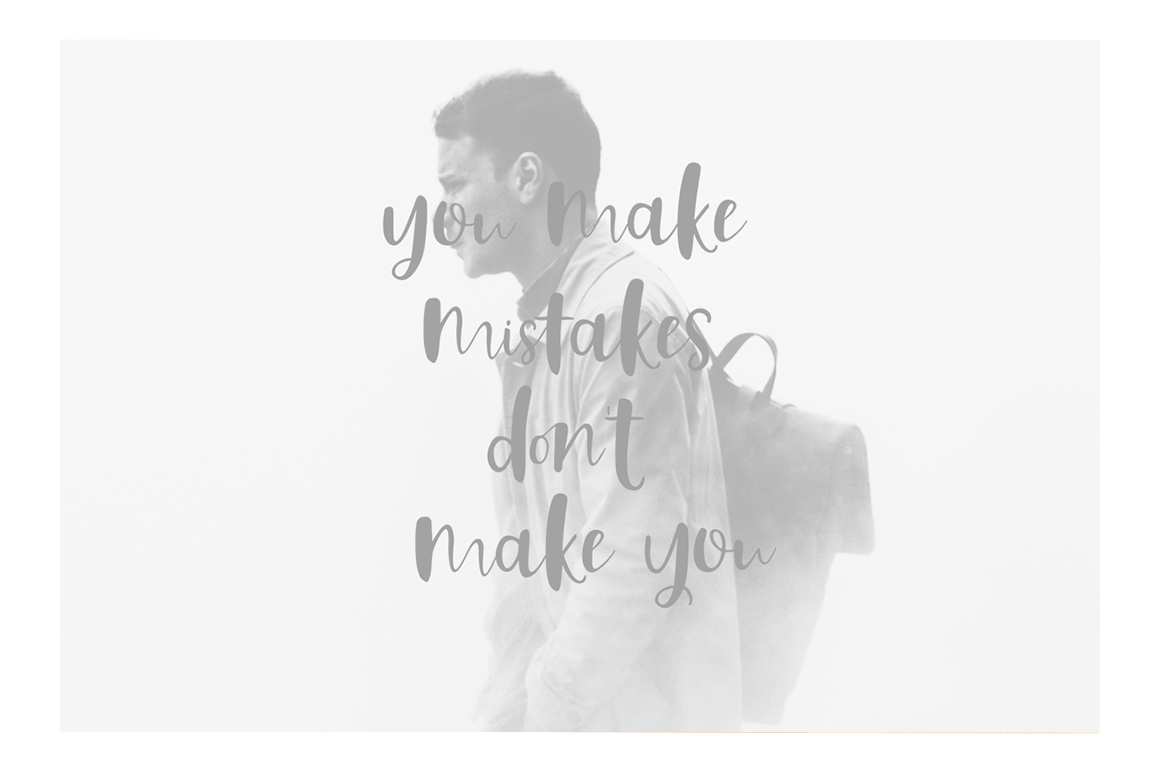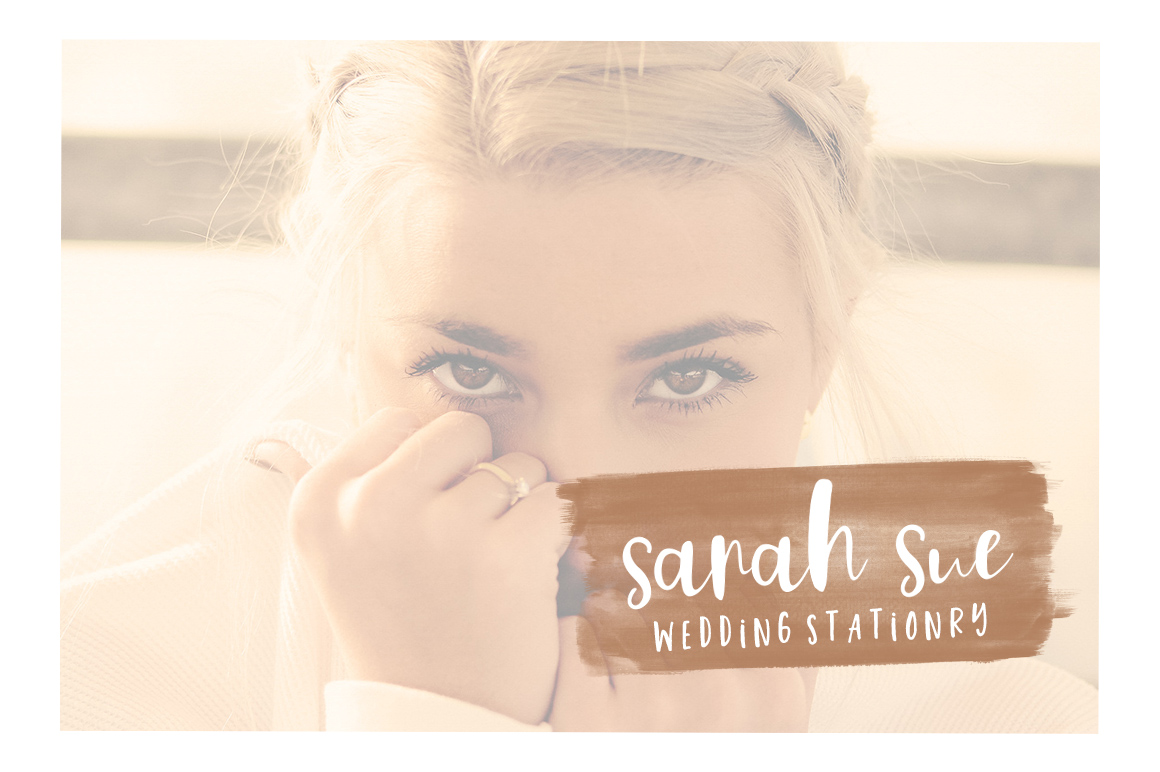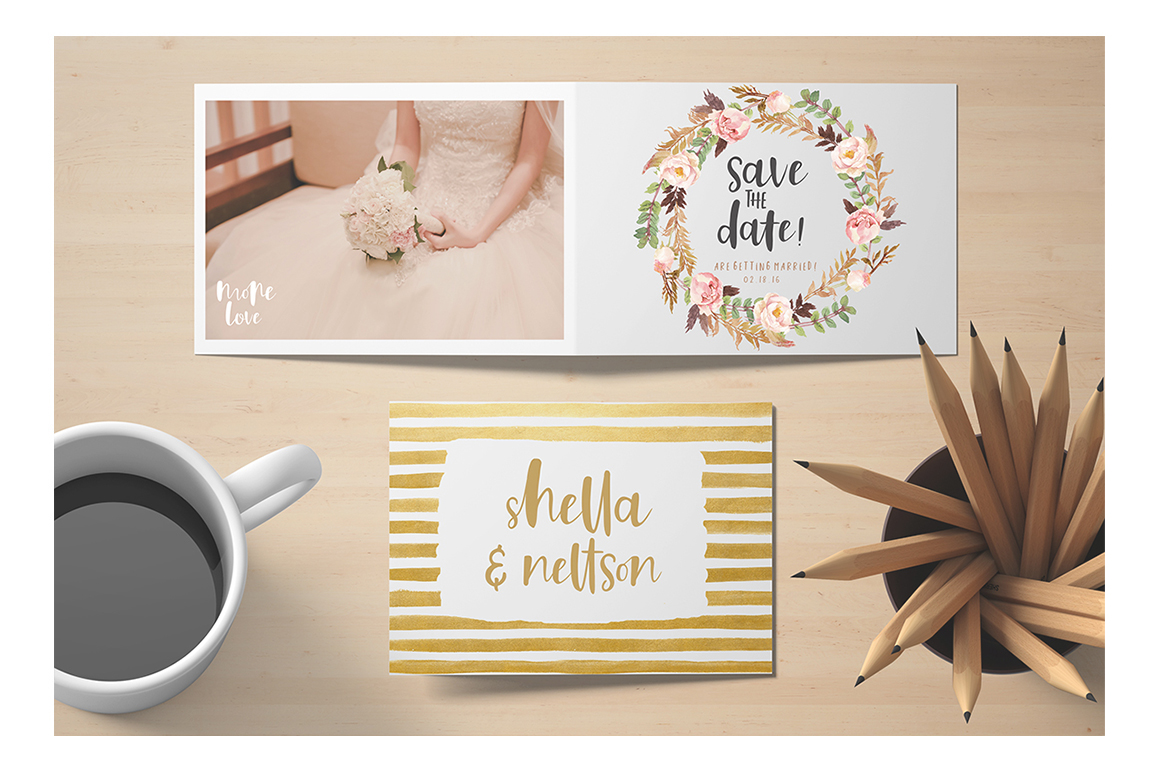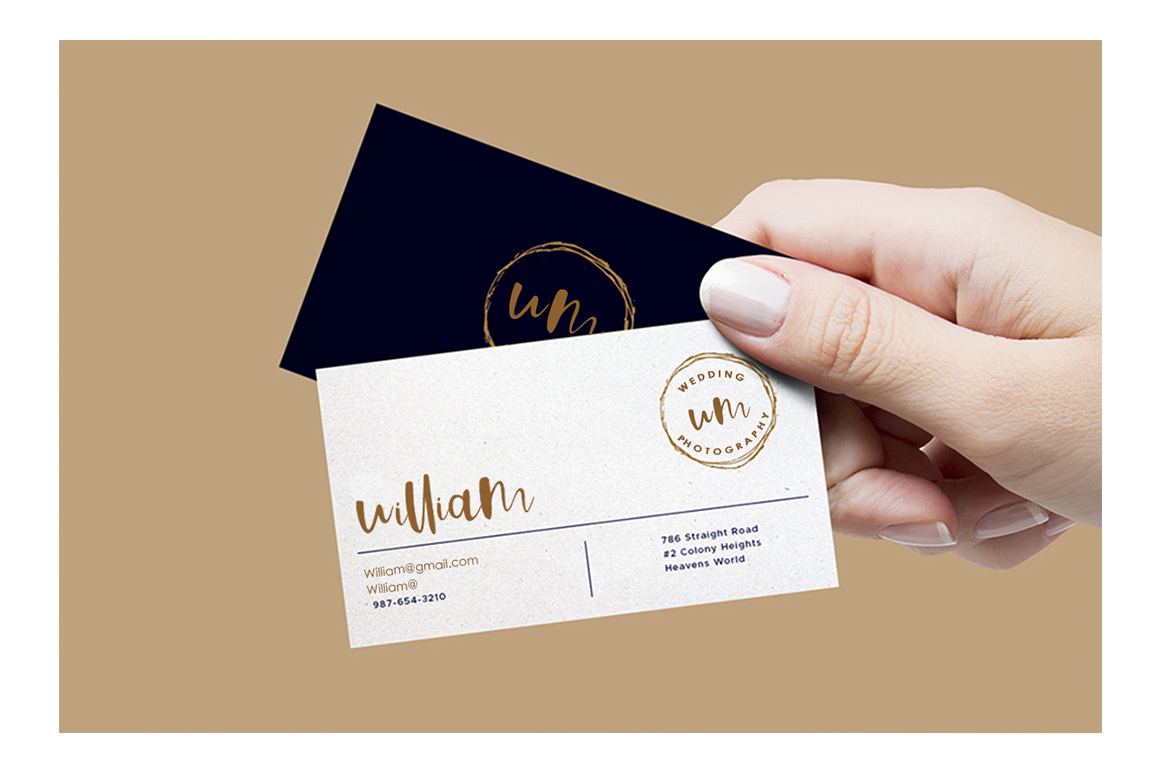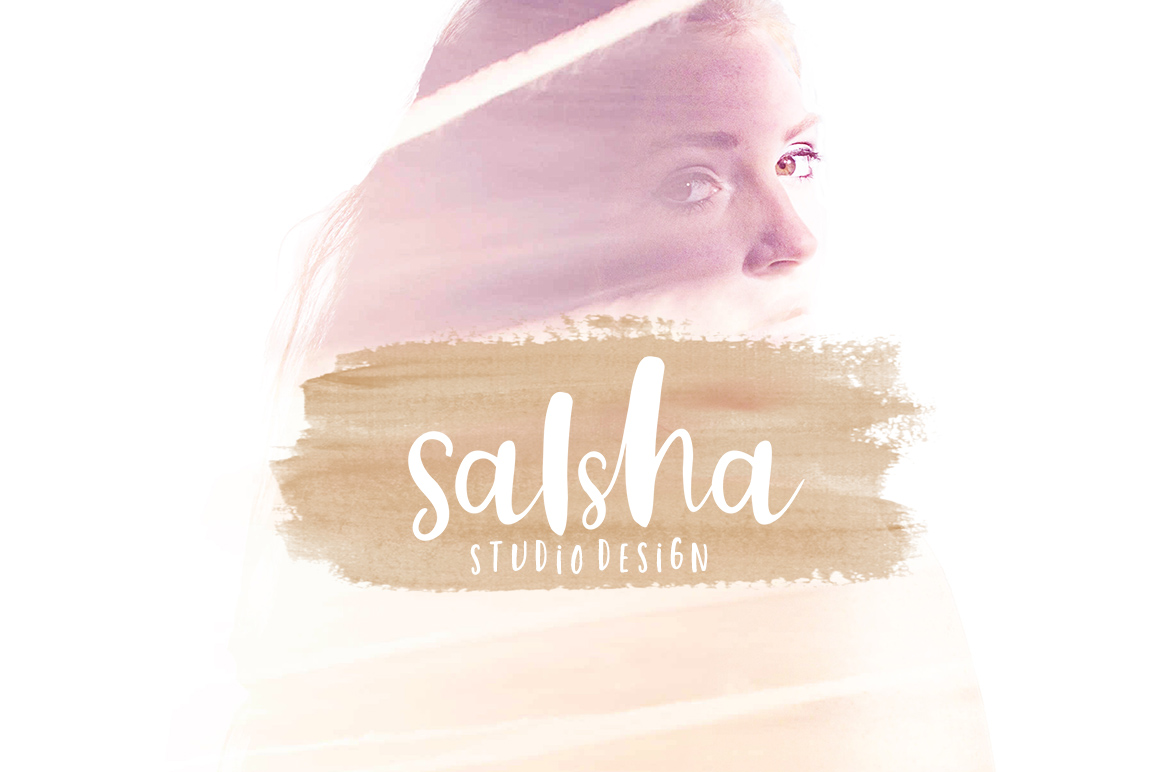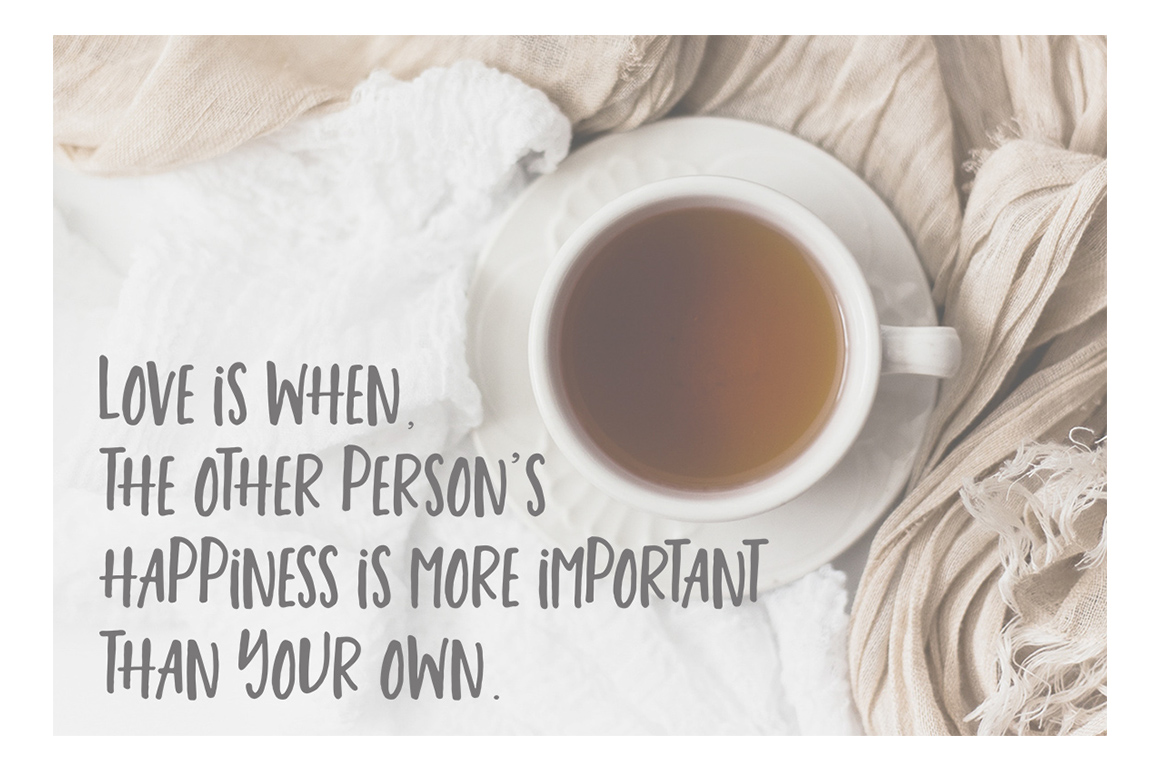
Astilone Font Duo Font
About Astilone Font Duo Font
The Astilone Font Duo is a hand brushed font, created with a brush and ink. It features a bold & irregular baseline.
Both of the Astilone fonts work in perfect harmony, creating amazing typography creations.